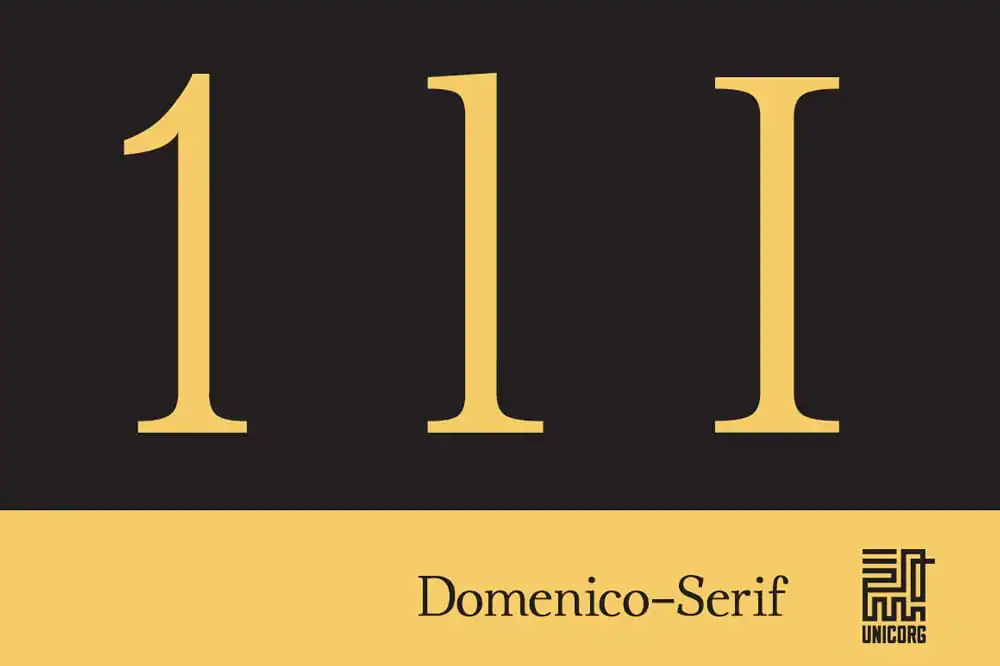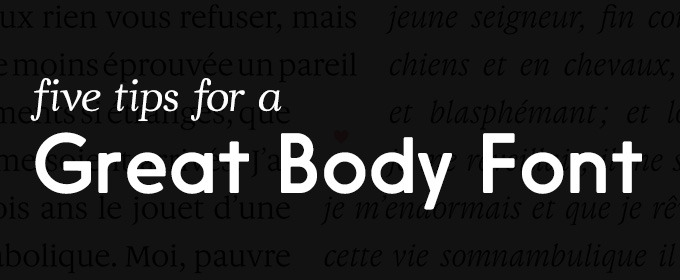
For any given text, there are many typographical solutions that will enhance the look of the content while reinforcing the meaning. Headline fonts are often designed to be decorative and attention-getting, but you want the opposite from a body font—it needs to avoid attracting attention to itself. Using a font that was designed specifically for body text will go a long way towards making your document engaging and more professional. So, how do you choose the right font? There is no one-size-fits-all solution as what works better on screen doesn’t necessarily translate well to paper. But following some simple guidelines will go a long way towards helping you pick a typeface suited for your business image and readability.
1. Does It Match Your Purpose?
The first rule of choosing any font is knowing how it will be used. The font you pick should complement the content, whether it’s a short headline or lengthy body text. Selecting a typeface for an established company with old-school formality? You might use a classic serif font. Picking a font for a fresh and modern start-up? Opt for a lightweight sans-serif. Serif or sans-serif? For print, tradition dictates you use a serif font, but it’s not mandatory. For the web, either a serif or sans-serif is acceptable, but when in doubt, try a sans-serif first for a more modern look.
Meddle, for example, is a great rounded sans-serif font that’s readable at multiple zoom levels, although you might want to increase the spacing a bit.
It’s best for uses where you need to convey a lot of information, but you don’t want to look like you’re taking yourself too seriously. And Gauthier is a well-balanced serif with a high x-height and small caps that don’t detract from the text.
2. Shape and Rendering
Make sure you choose a font where the letters are easily identifiable from one another, since—unlike in a headline—the reader will have to instantly know if a letter is an “o†or an “e†in order to keep their eyes flowing through the text. One quick way to do this is via the “I-l-1 Test.†As the name suggests, type a capital I, a lowercase l, and the number 1 next to each other. Is there a visible difference between them? This is a good litmus test for how much attention the designers put into letter differences in general.
The next thing to consider is show it renders on screen. Test it in every size variation you need, as well as with italics, in bold, and with small caps, if you plan to use them. Is your font hand-hinted, meaning the letterforms are re-shaped for optimal on-screen viewing at various sizes? If not, than can you get multiple optical sizes? An optical size is a version of a font that’s tailored specifically for use at a different size. Many fonts will have both a “display†and a “caption†version.
A font with different “optical sizes†has different styles for different types of output. For example, many fonts are thicker in their caption form than in the display form. Some serif fonts round off the corners and pointy edges so they don’t disappear at smaller sizes.
Stroke contrast—the amount of variation in the thicknesses in the lines and curves that make up each letter—should be much lower in caption fonts than display fonts. In other words, they’ll be less elegant, but they’ll more than make up for it in readability.
3. X-Height
X-height, named for the height of a lowercase “x†in any given font, is the height a lowercase letter with no ascendants or descendants will reach on a particular font. High x-heights, meaning the lowercase letters extend further over the font’s horizontal halfway line, tend to make fonts more legible at smaller sizes or from greater distances. There are plenty of individual fonts that have been optimized for readability in ways that make up for their relatively low x-heights.
4. Spacing
A comfortable amount of space between letters is crucial to your readers being able to move through the document naturally. Letters that are too close together impact legibility and readability at any size. A good body font will have optimized letter spacing and have built-in adjustments for awkward letter relationships, like “kw†and “ve‗known as “kerning pairs.â€
5. Sizing
In print, the most comfortable size for a body font is 10-12 point, with 12-14 point leading—the distance between each line of text on page or screen. On the web, font size can vary from 15 to 25 pixels. Certain fonts are designed so that they can stay legible down to a smaller point size. For older readers, larger point sizes—often 14-18 point—are recommended for better readability.
In Summary
Good design is crucial to your document’s readability and the overall “atmosphere†of your piece. Go beyond the call in picking a font, and you’ll be rewarded with an engaging document that will boost the reader’s interest in your content and your brand.